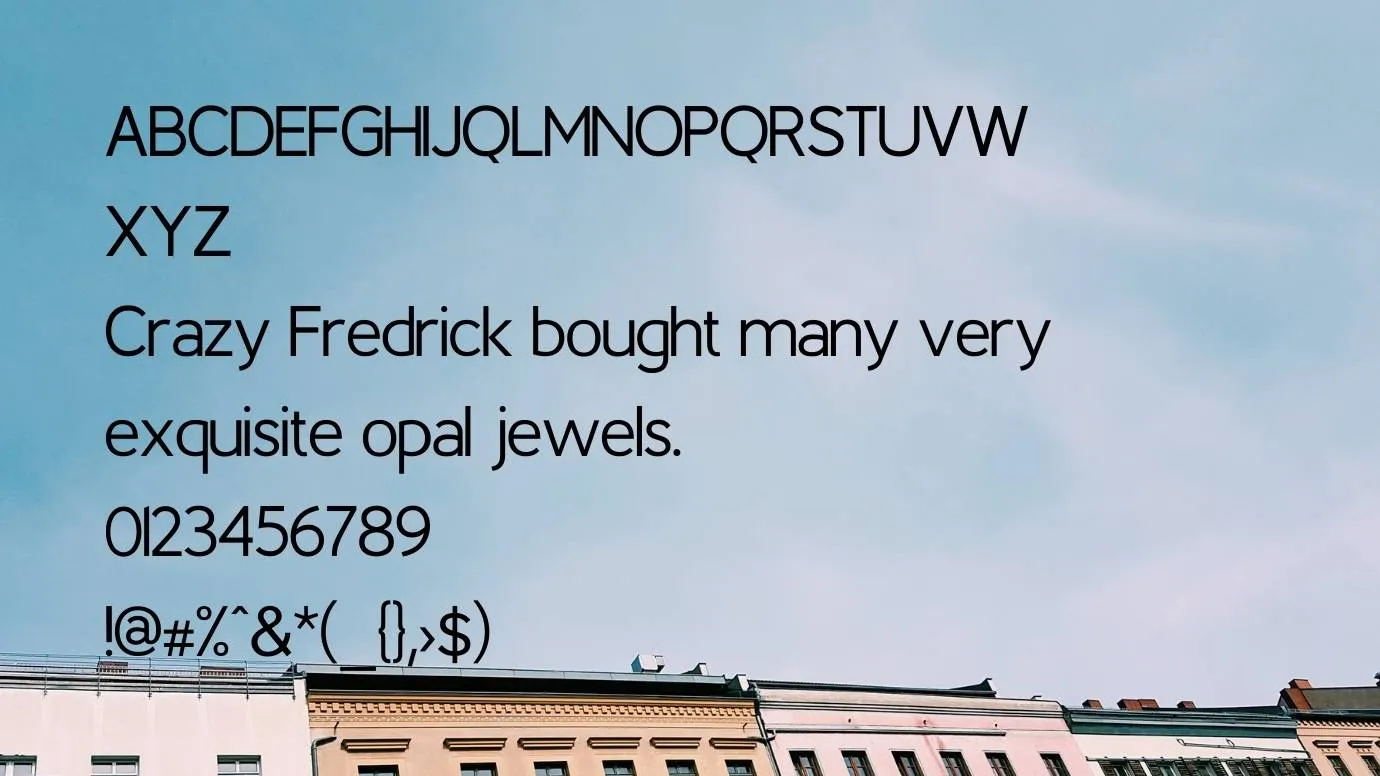
Berlin font is a member of the Sans-Serif font family. This typeface has been designed with a slightly-bold font appearance that provides a prominent texture appearance to your designs and projects. This typeface also has a neat and elegant texture appearance that can easily utilize on small and large screen displays interfaces. This font style is also considered a typewriter font that can also produce a classic sensation. This typeface can easily be utilized in today’s flexible layouts and designs.
This font style also has a pairing nature that can easily make pair with other fonts. So, you can easily choose other fonts and combine them with this font style for creating amazing designs. This typeface also has some similar fonts that have matching identities with this font. But Sunflower font has the most similar personality to this font. So, you can use this font as a replacement for Sunflower Font. You may also utilize its font generating tool to create a quick design or convert text to graphics. This tool does not need to be downloaded to your operating system.
Creator of Berlin Font
This neat and simple font style has been designed by a well-known graphic designer and font maker named Antonio Rodrigues Jr. He has also created many of the famous fonts that are used in the majority of designs and projects.
This font texture is constructed with four styles Regular, Italic, Bold, and Bold Italic. Each style of this family is comprised of capital letters, small letters, glyphs, punctuations, numbers, symbols, special characters, and many languages support.
View of Berlin Font
| Designer | Antonio Rodrigues Jr |
What is Berlin Font?
It is a Sans-Serif Font with modern characters usually utilized for headings purposes or body texts.
What type of font is Berlin Font?
This typeface has been inspired by some of the classical fonts. It belongs to the sans-serif font family.
Is Berlin Font is a good font?
This font style has an amazing and stylish texture appearance that is utilized in many designs. So, this font is a good font.
Who designed Berlin Font?
This neat and simple font style has been designed by a well-known graphic designer and font maker named Antonio Rodrigues Jr.